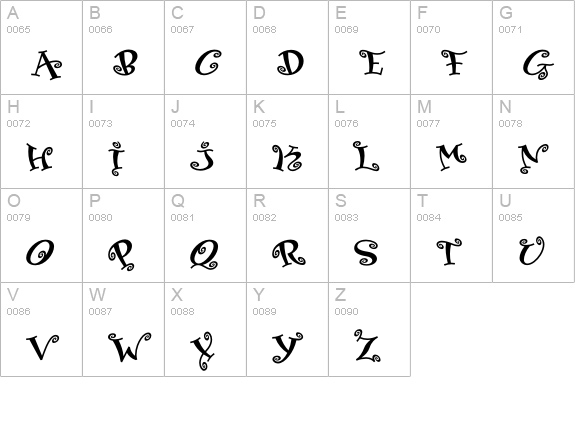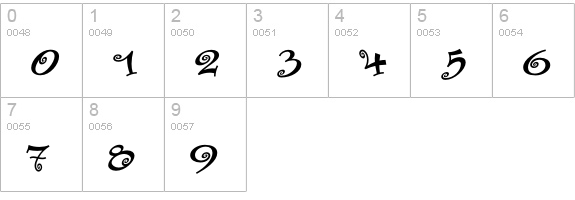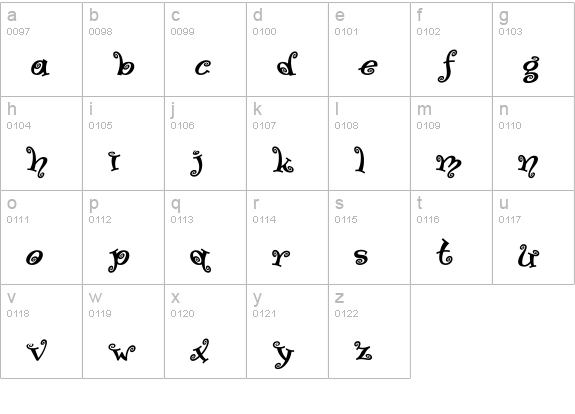
PaisleyICG-02Alt Font Details
PaisleyICG-02Alt is a captivating and stylish font that combines elegance with a touch of modernity. Its intricate design features delicate swirls and intricate details, making it perfect for adding a unique and artistic touch to any project. This font is not only visually stunning but also incredibly versatile, making it suitable for a wide range of applications. Whether you're designing a logo, creating eye-catching headlines, or crafting beautiful invitations, PaisleyICG-02Alt is sure to make a lasting impression. One of the best things about PaisleyICG-02Alt is that it is freely available to download at FontsMarket.com. This means that you can easily access and use this stunning font without any cost. Whether you're a professional designer or a hobbyist, the accessibility and affordability of PaisleyICG-02Alt make it a must-have addition to your font collection. With its unique and intricate design, PaisleyICG-02Alt is guaranteed to elevate your projects to new heights. Its free availability makes it an even more appealing choice, allowing you to bring a touch of elegance and sophistication to your designs without breaking the bank. So why wait? Head over to FontsMarket.com today and download PaisleyICG-02Alt for free to add a touch of magic to your next creative endeavor.